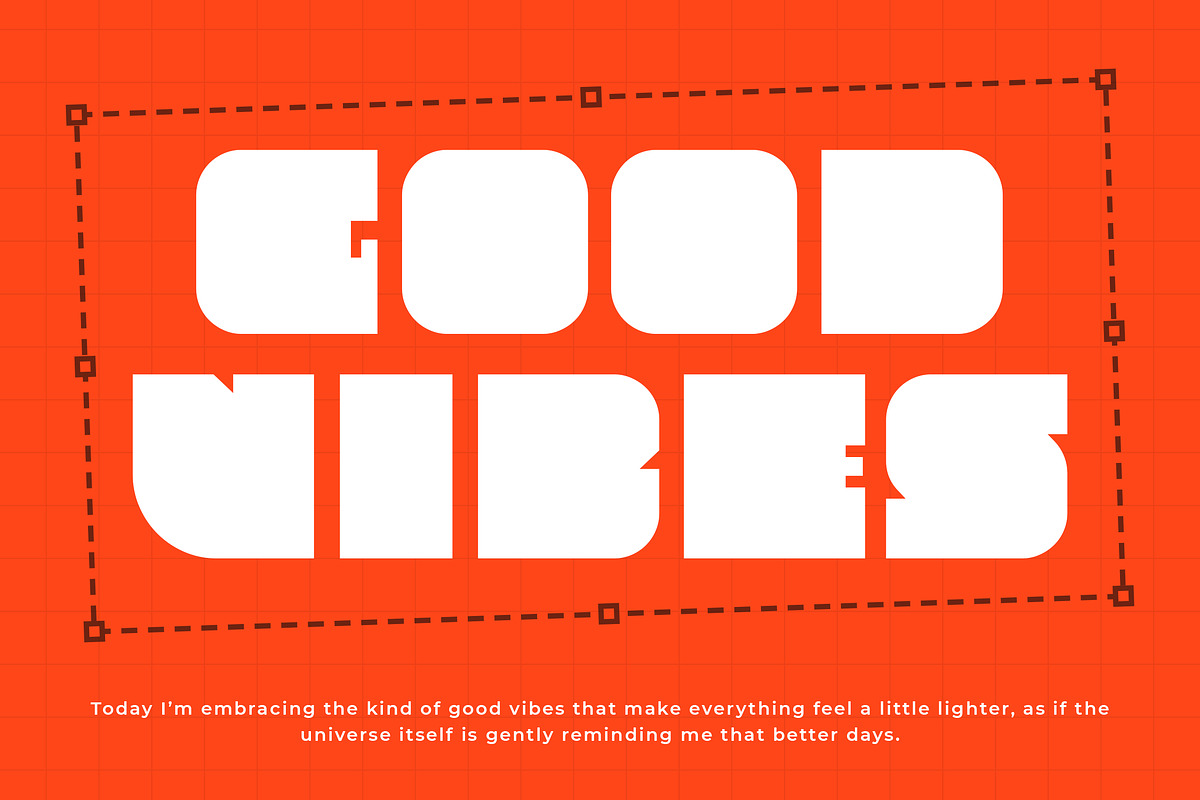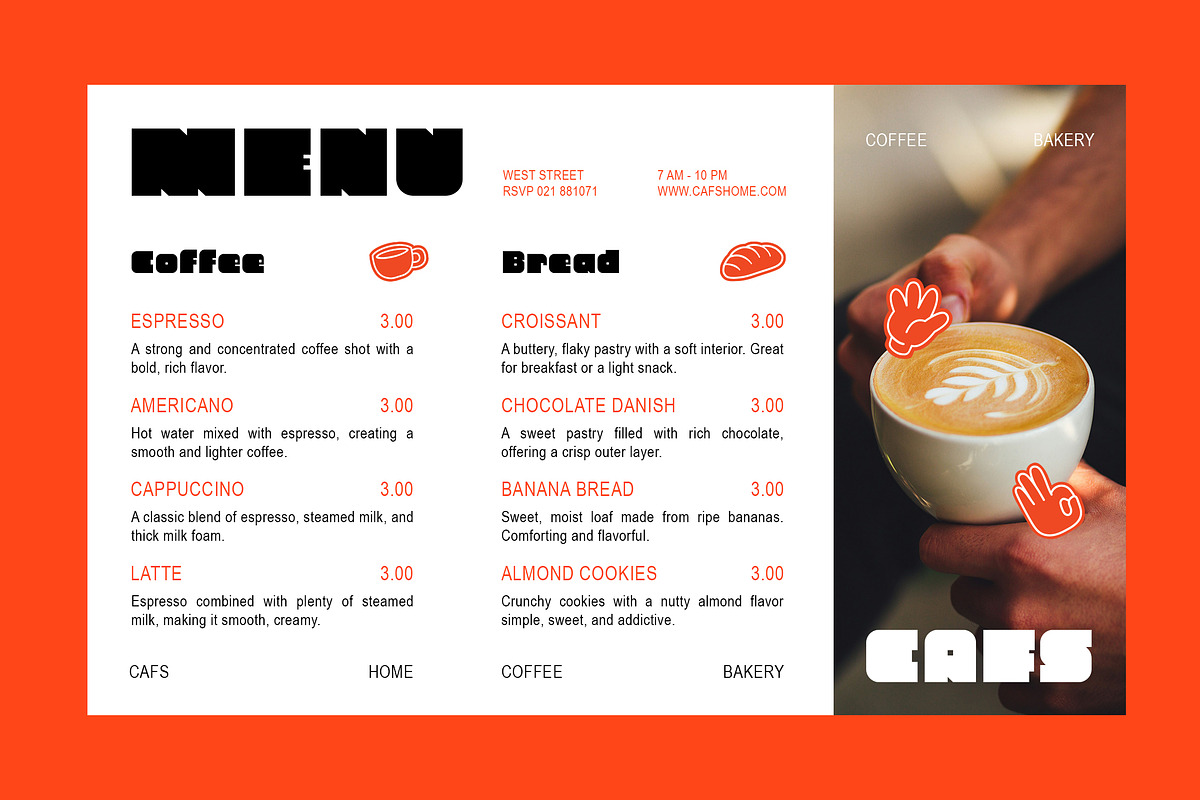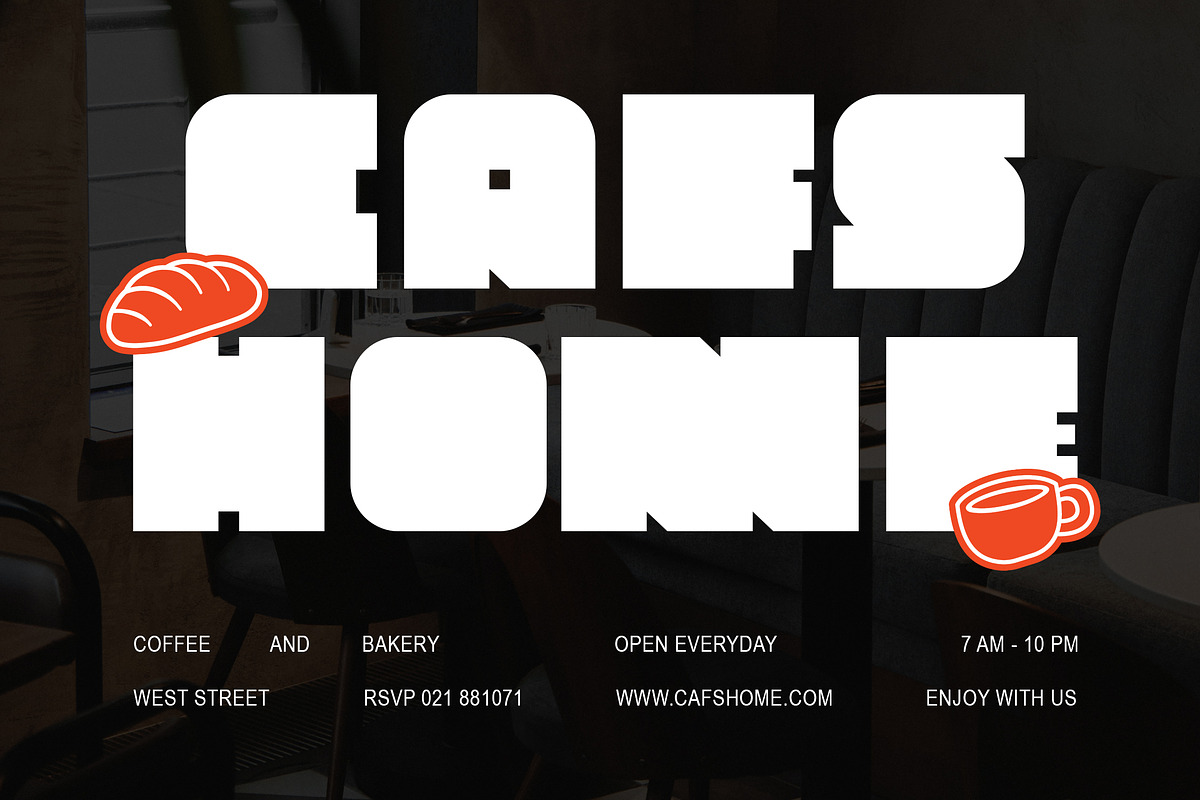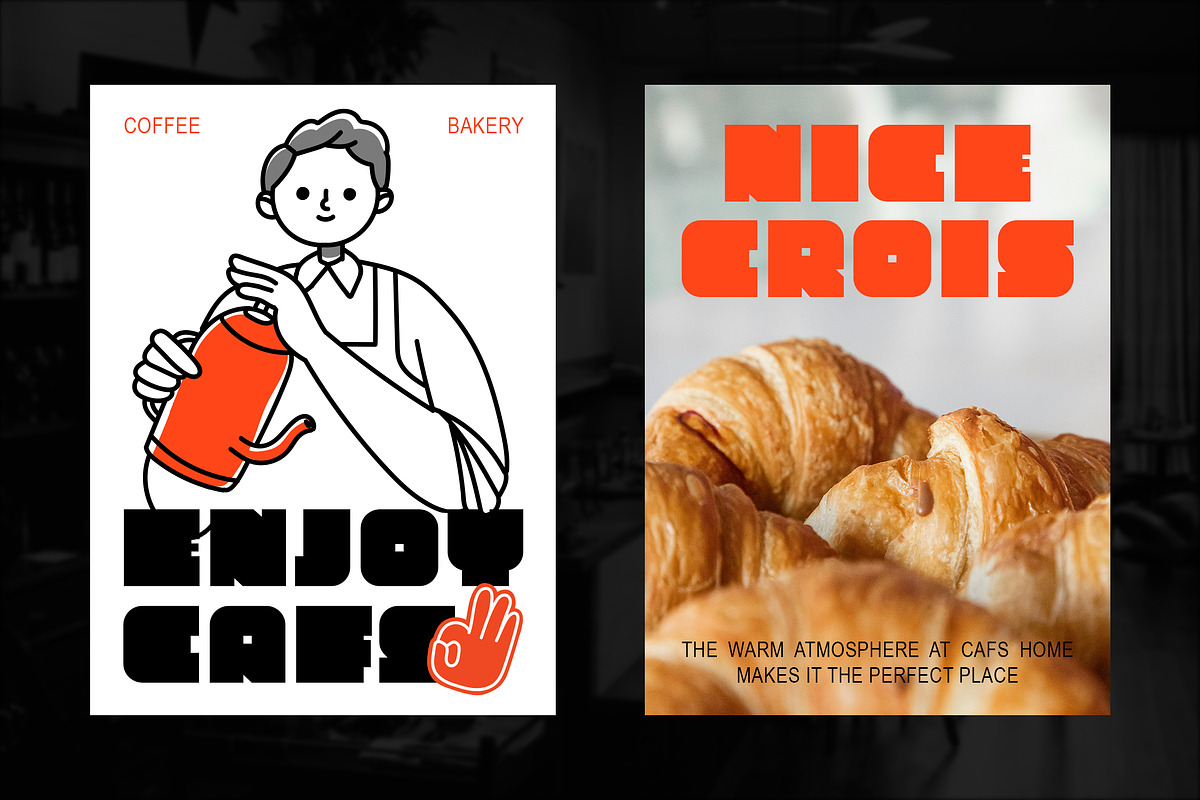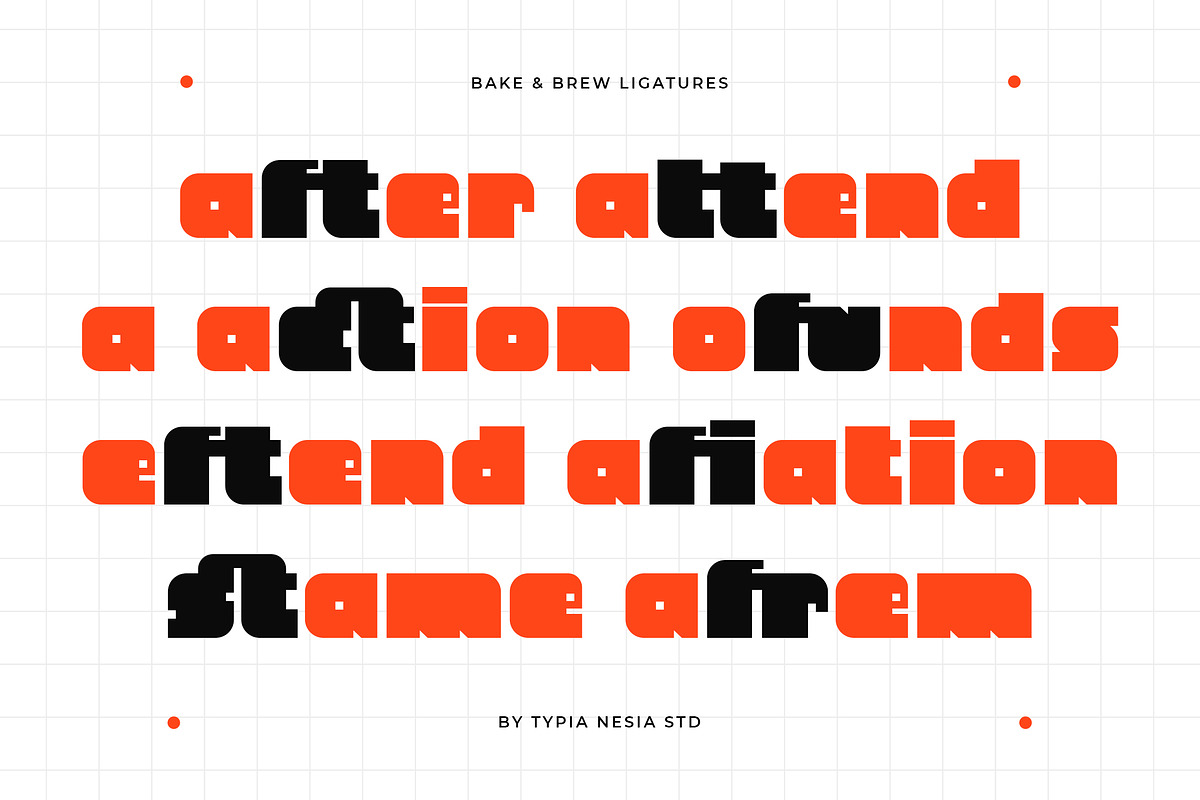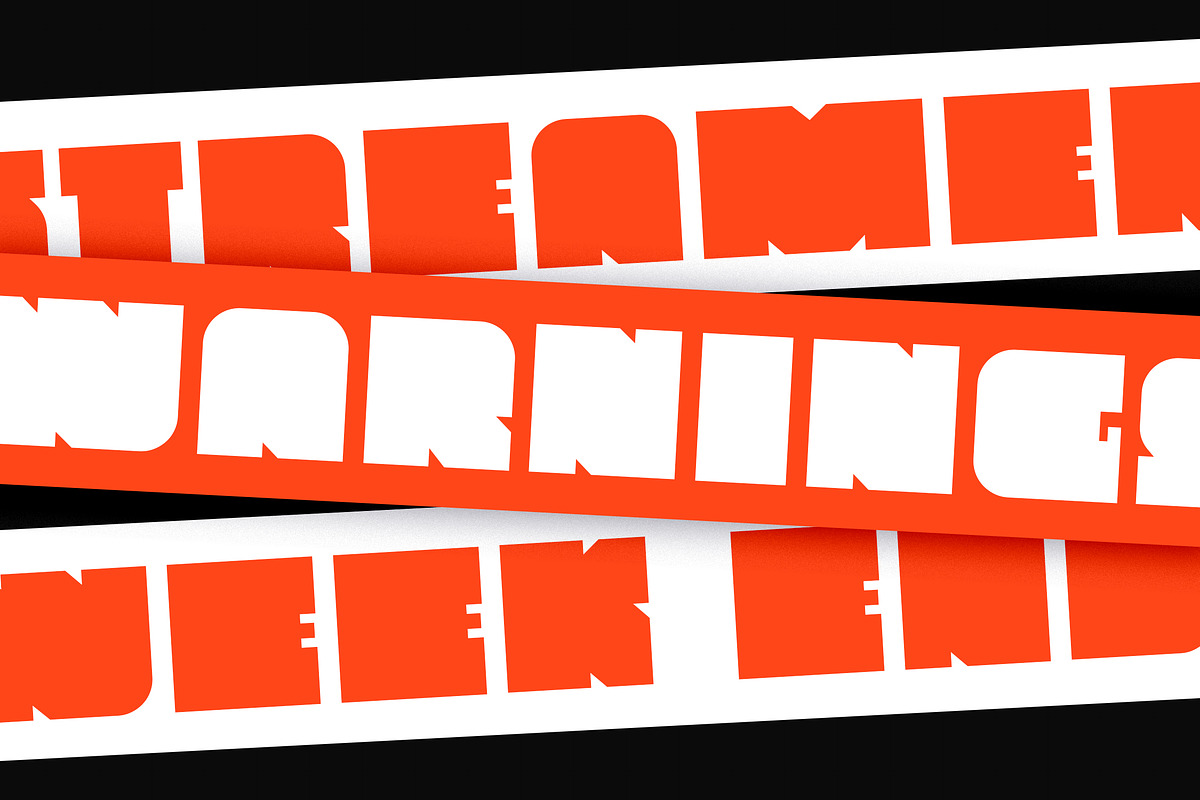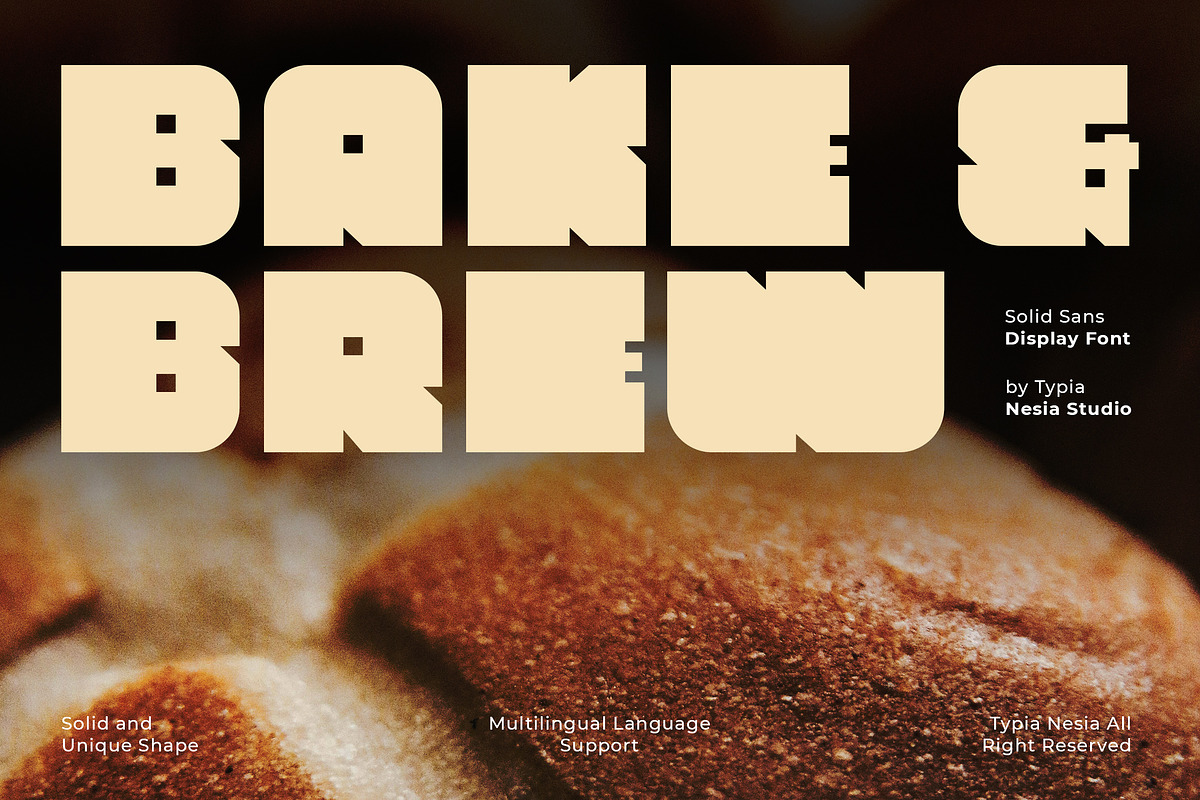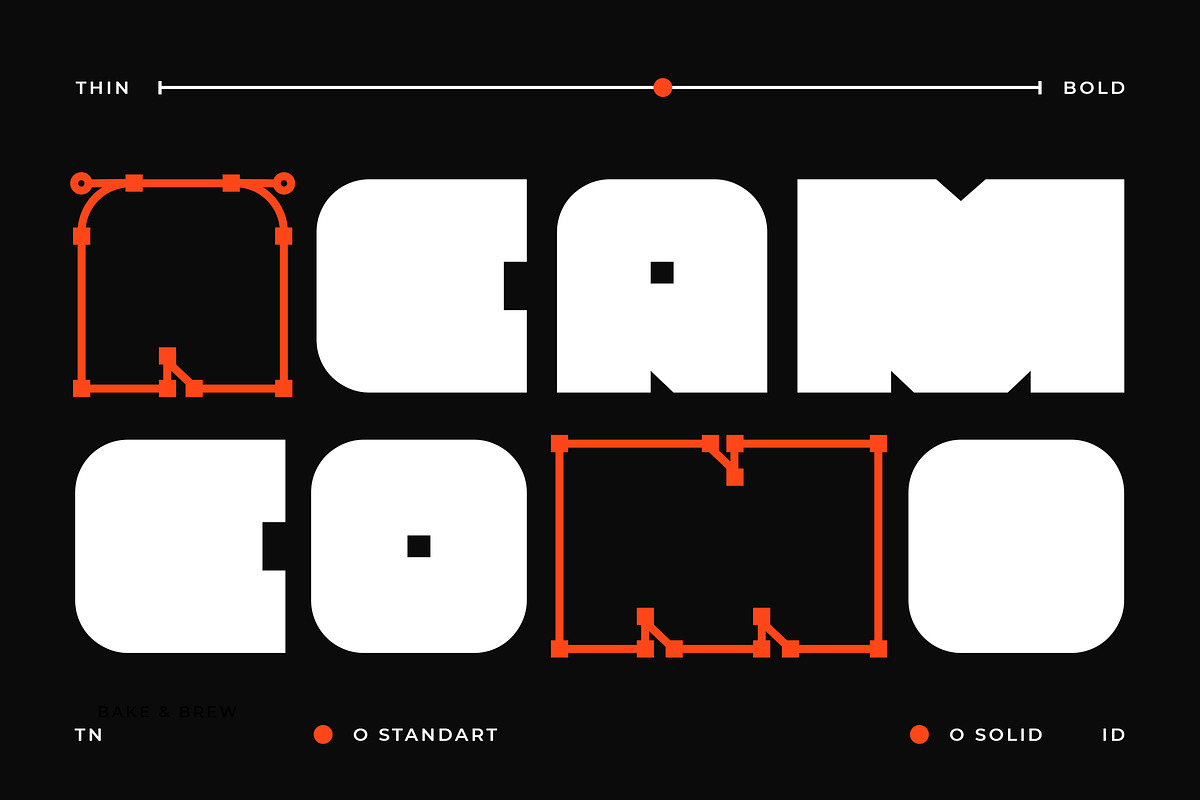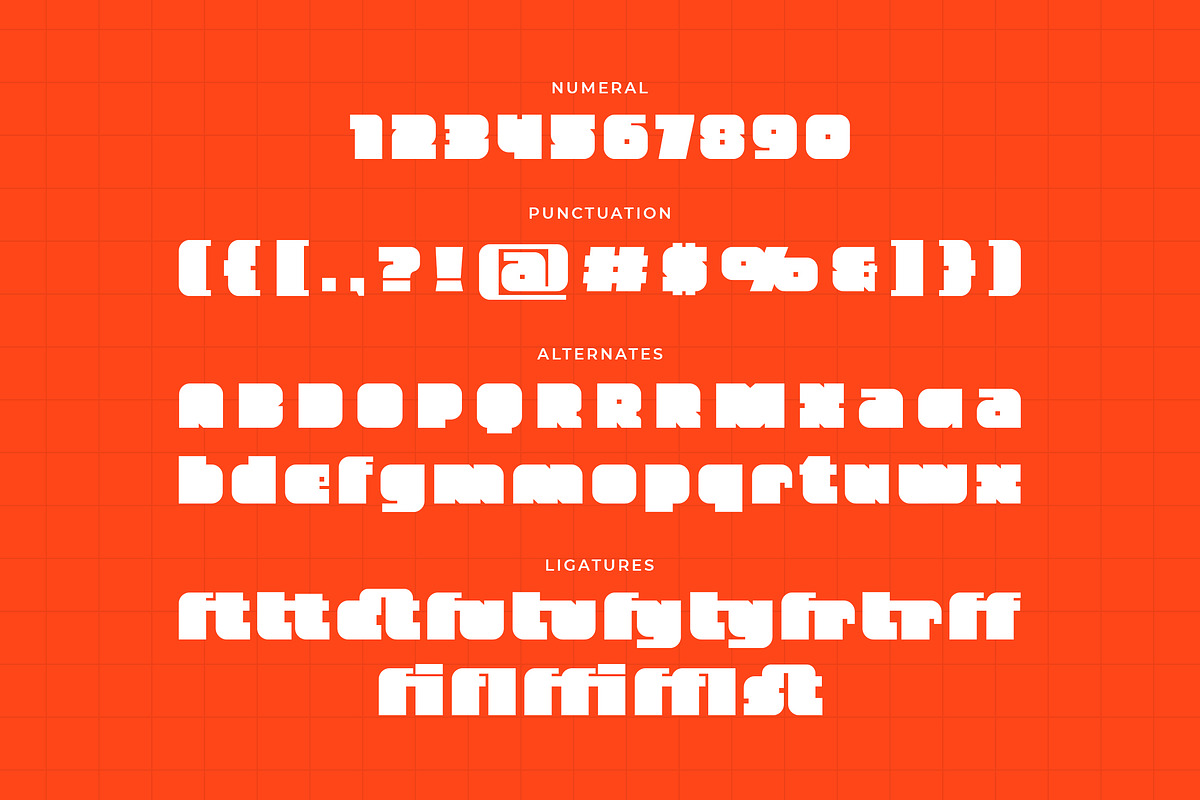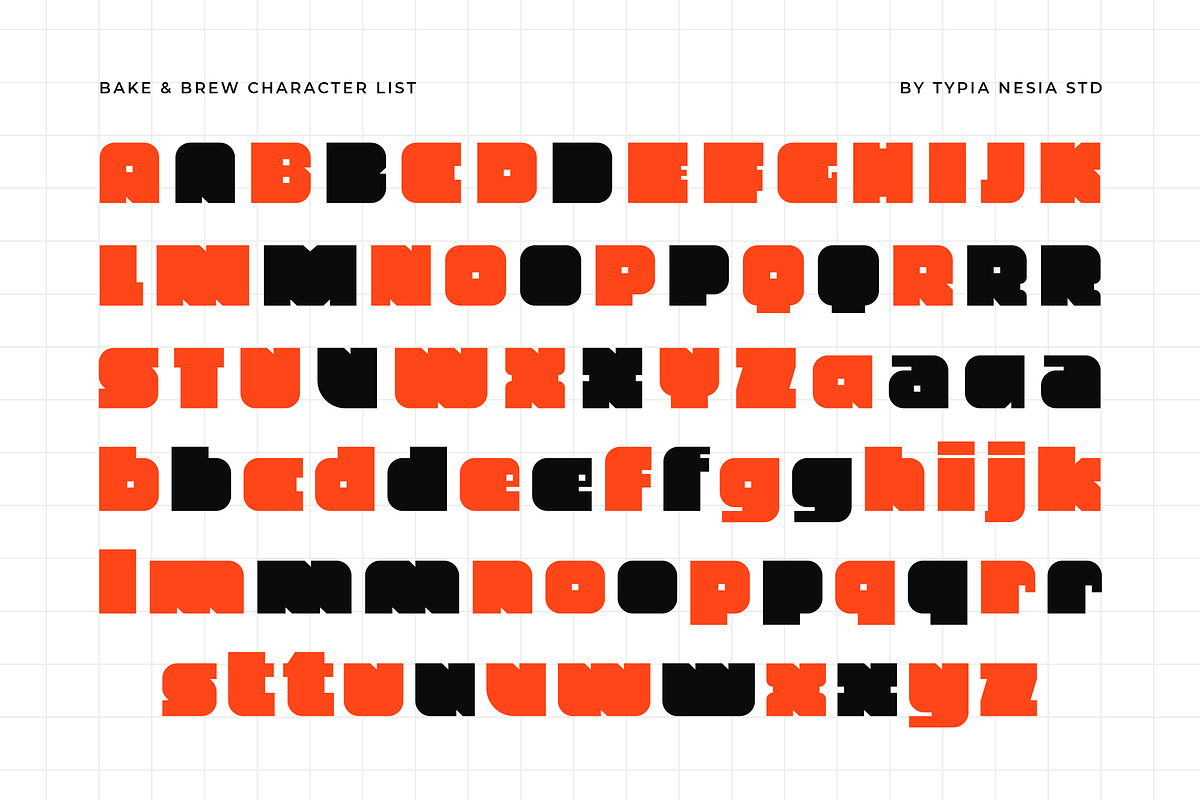
Bake & Brew - Modern Bold Chunky
Bake & Brew - Modern Bold Chunky Sans - Playful & Rounded Logo Display Font
Bake & Brew is a Modern Bold Solid Sans font crafted with a chunky rounded shape and a distinctly playful yet professional personality. Designed to elevate branding, this typeface blends modern design, solid forms, and smooth rounded edges, making it perfect for logos, bakery branding, social media graphics, coffee shop identities, retro-inspired posters, vintage packaging designs, bold headline artwork, and any project that requires a touch of retro-modern visual identity. Comes with creative ligatures and expressive character alternates, ensuring your typography feels custom-made and full of charm, Perfect for designers seeking a modern yet retro, fun yet solid, and clean yet chunky typeface to create striking visual impact.